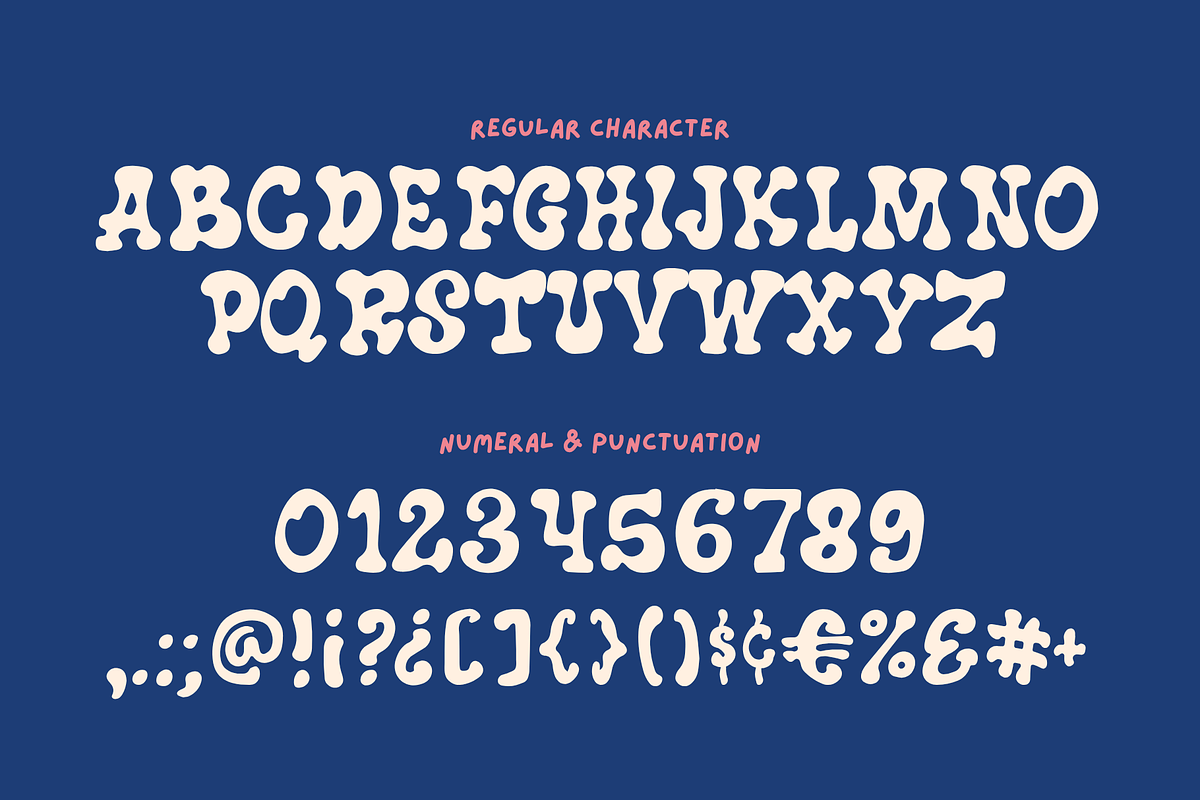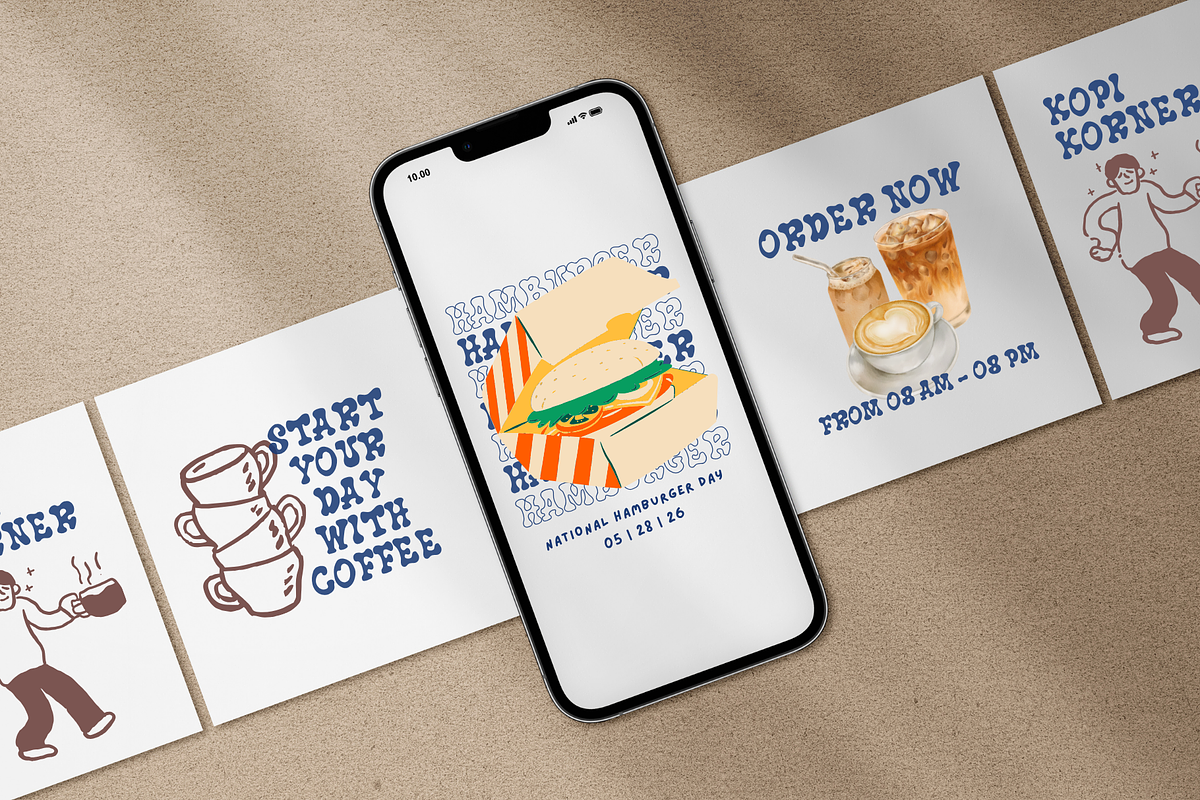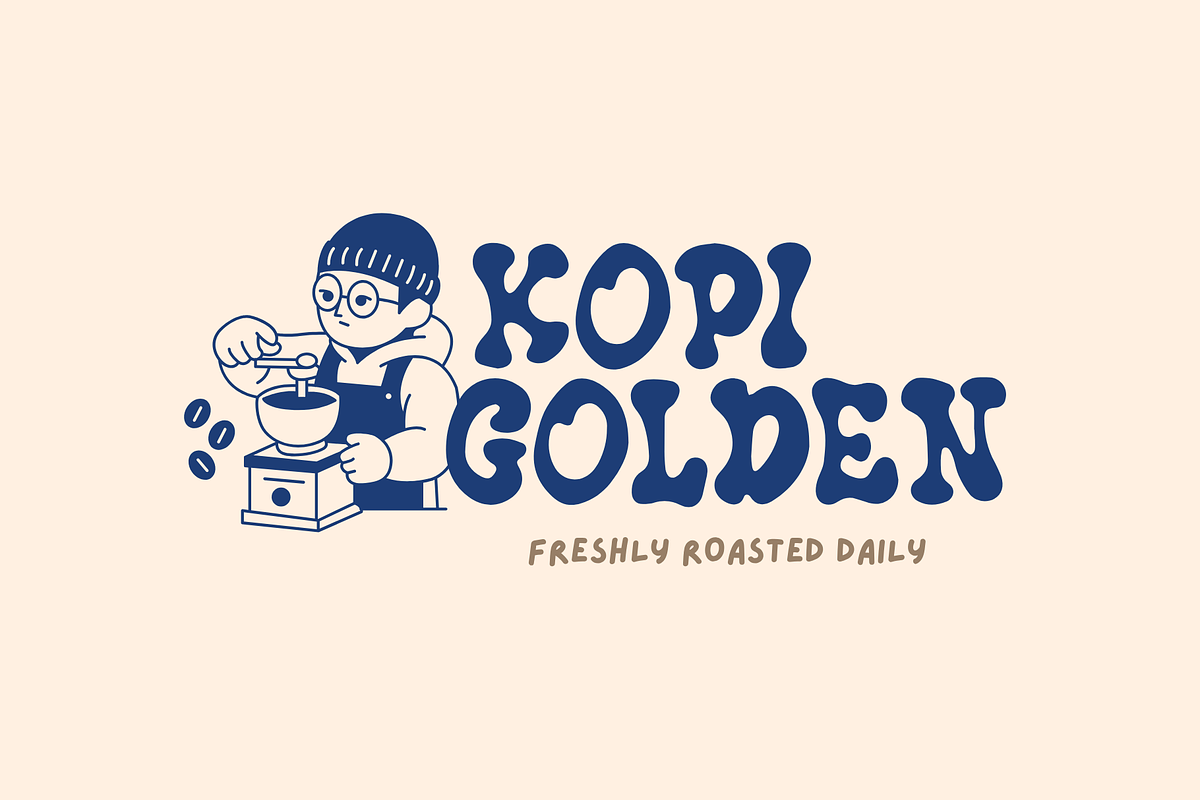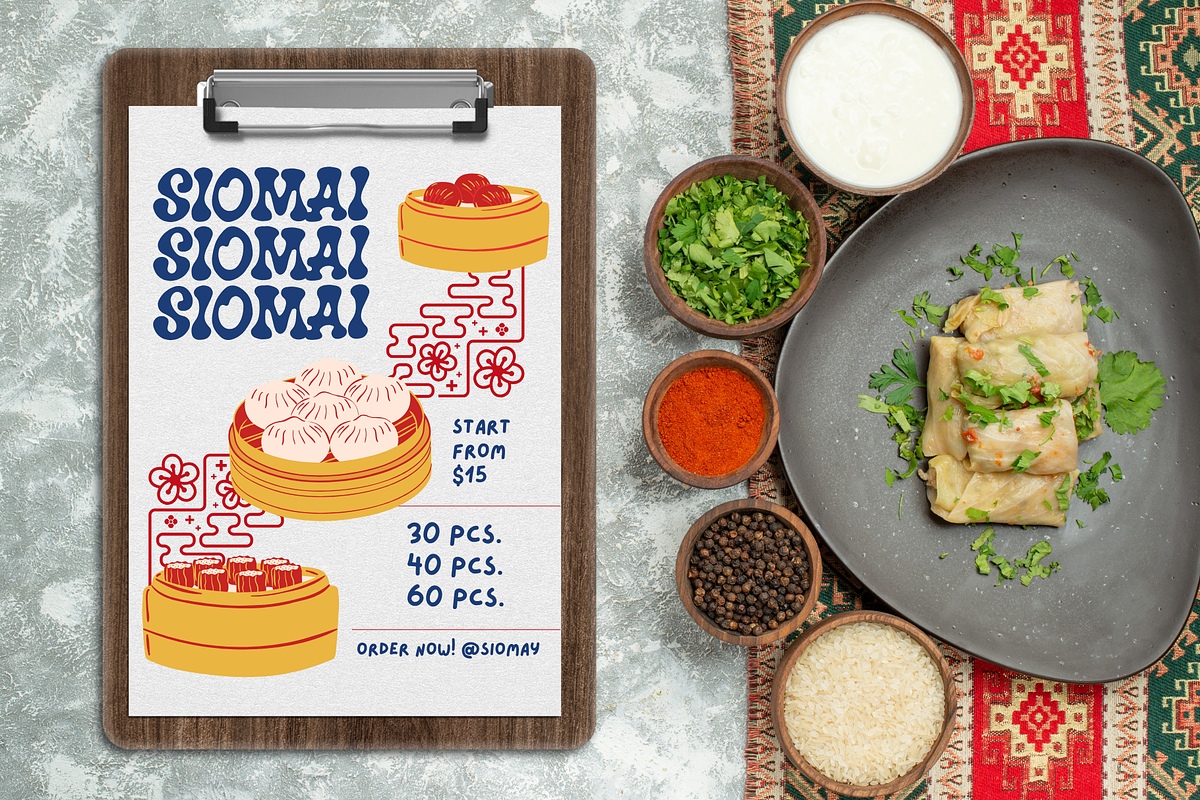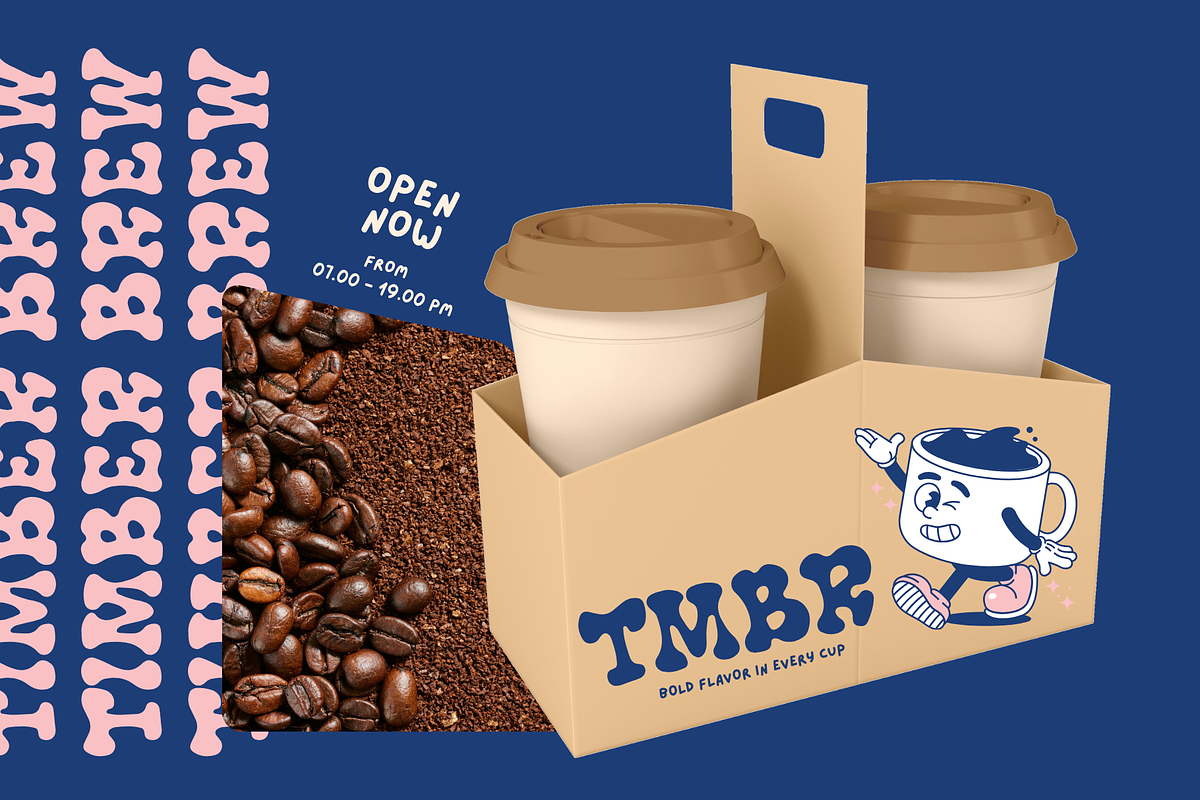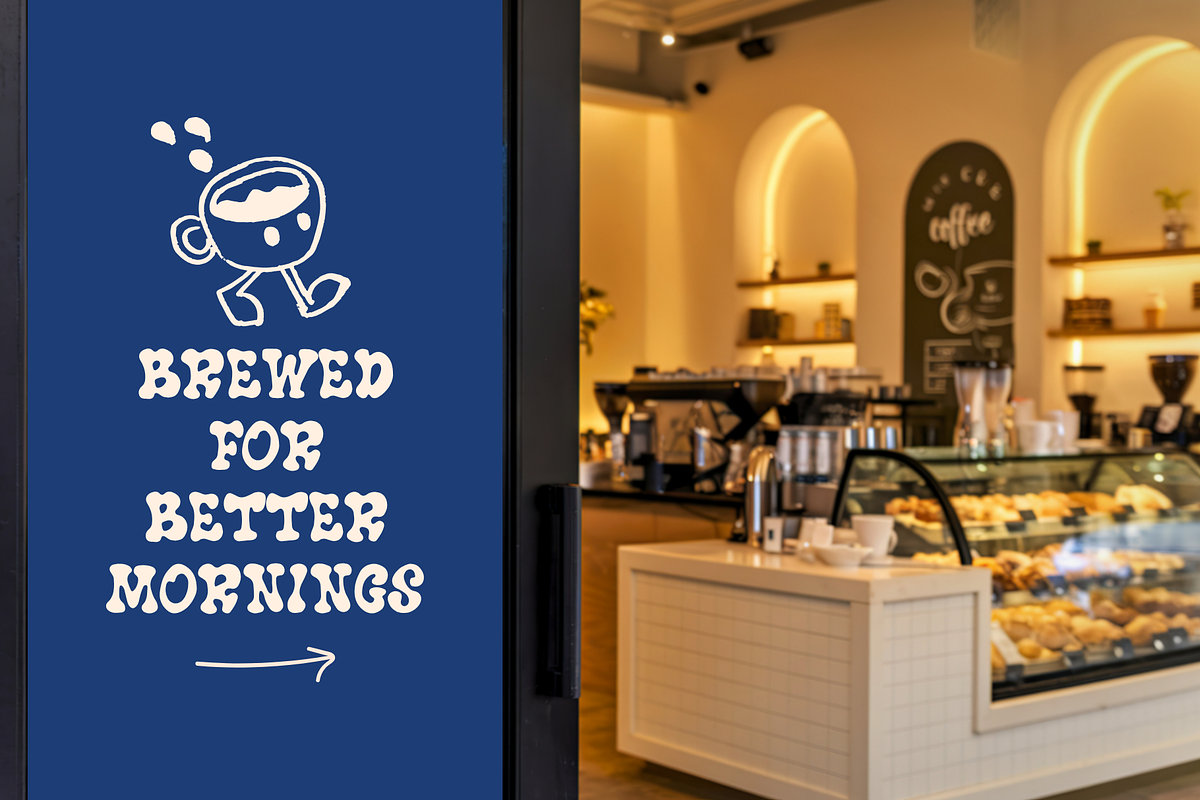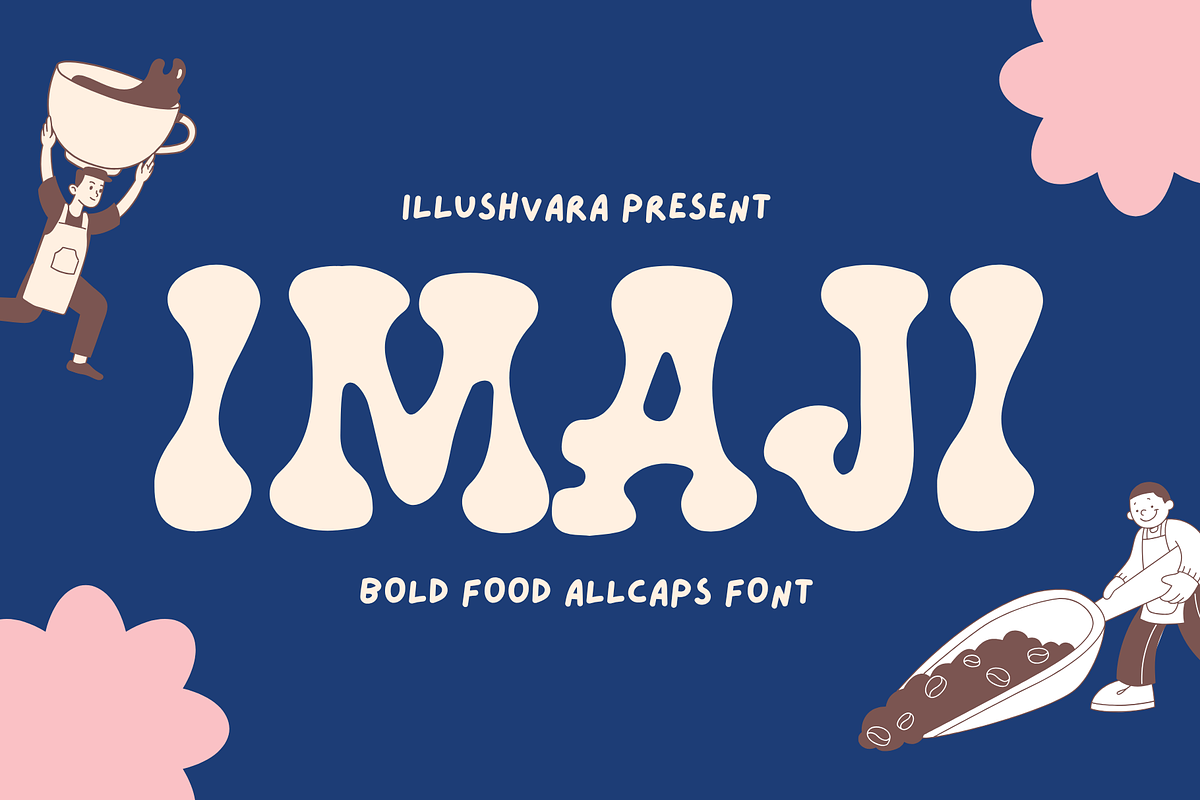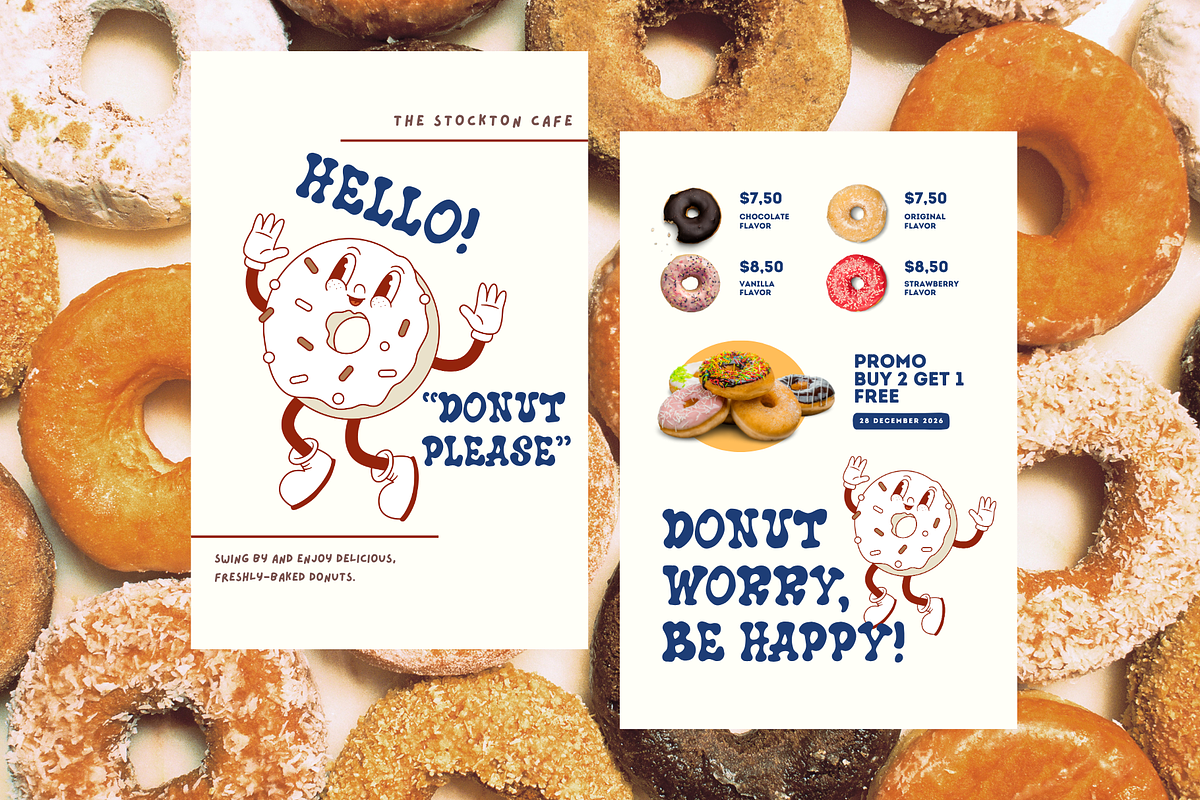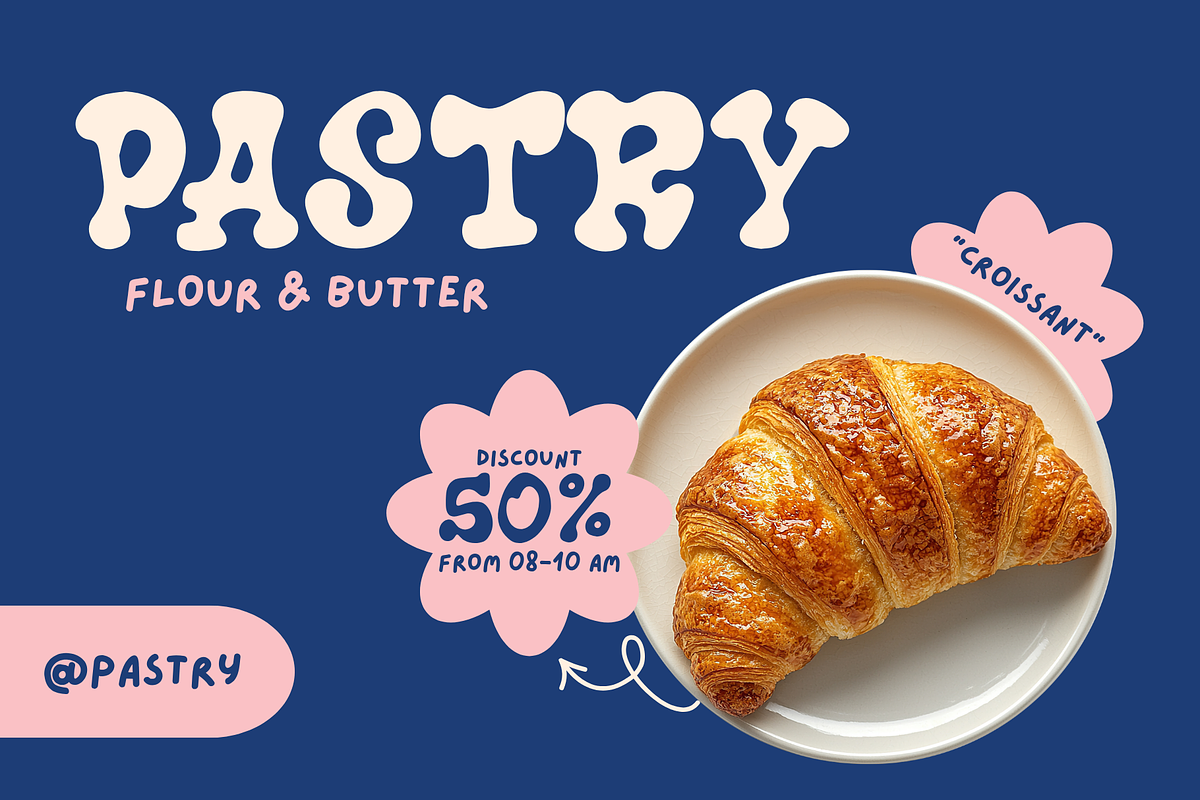
Food Imaji - Coffee Shop Logo Font
Imaji Food Font is a bold handmade display font crafted to make your branding stand out with confidence and character. Featuring strong letterforms and an authentic handcrafted feel, this font is perfect for logos, food branding, coffee shops, cafes, restaurants, bakeries, packaging, labels, menus, posters, social media graphics, and promotional materials. Imaji brings a warm and energetic personality to every design, making it ideal for businesses that want a memorable, eye-catching, and professional visual identity.